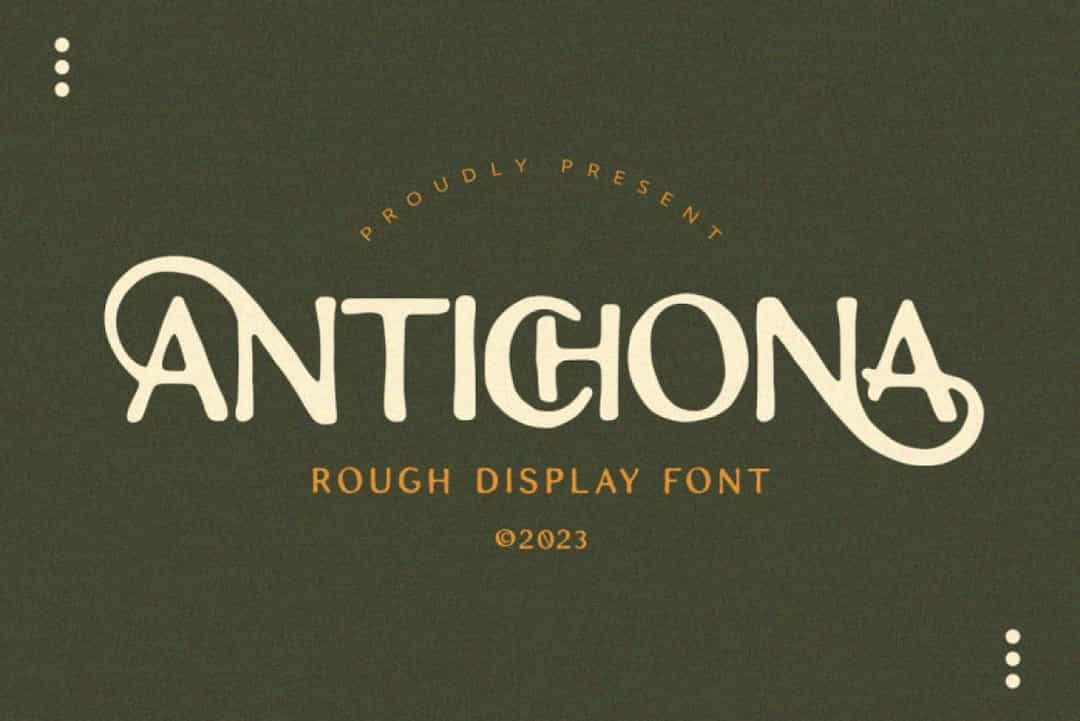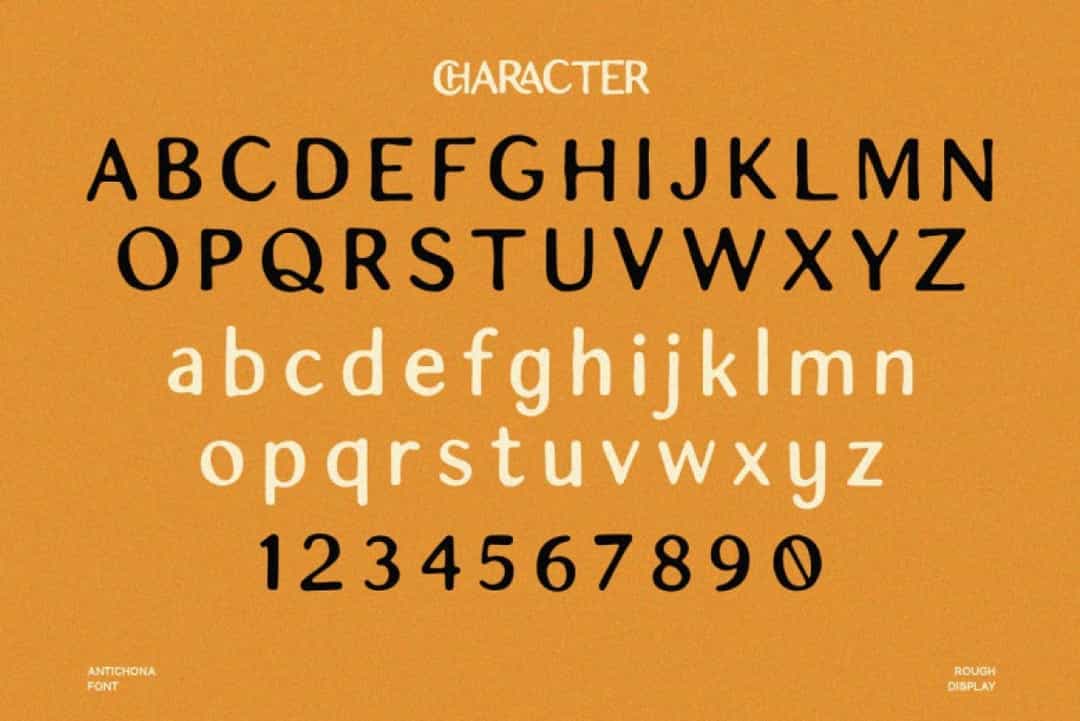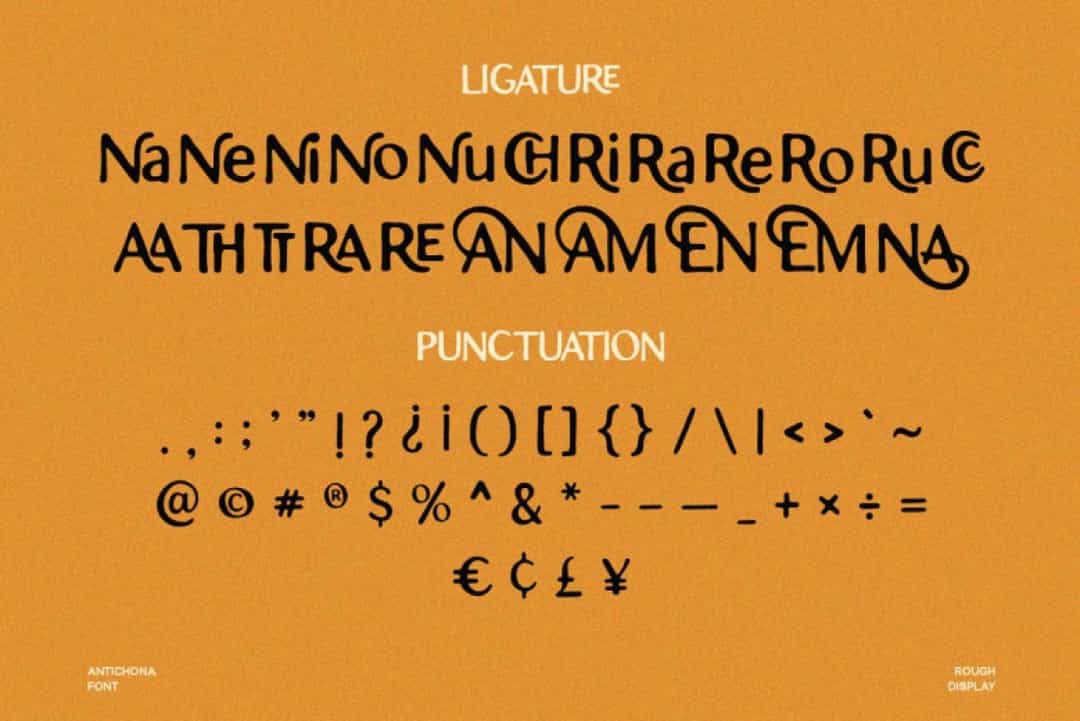
Antichona is an authentic retro-inspired display font which can be used for branding, logo Design and lettering projects ranging from branding and lettering logotypes for clothing, posters magazines packaging shopping bags posters T-shirts book covers Photography special events photography etc.